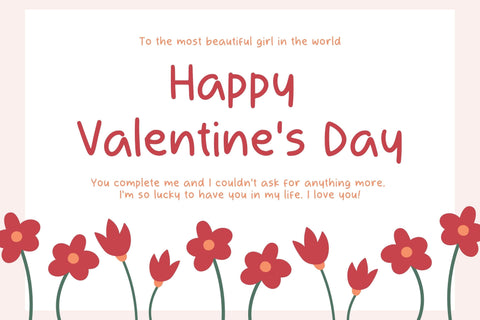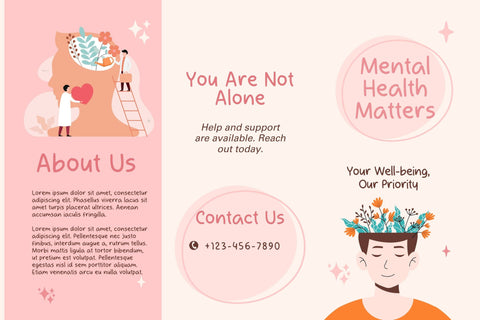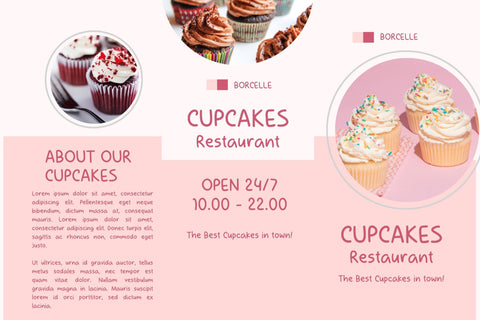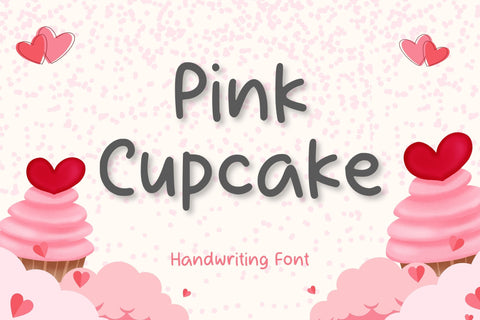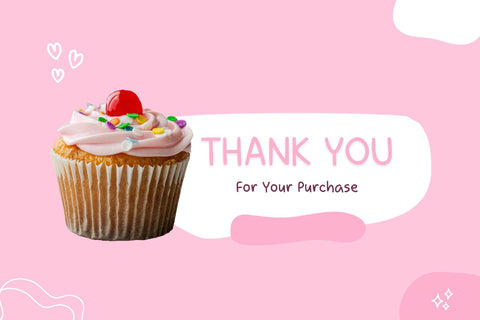
Pink cupcake
Unveiling "Pink Cupcake", an enchanting handwriting font effervescing with charm, this captivating typeface stands out in branding initiatives and creative projects. This delightful font captures the essence of whimsicality and is perfectly tailored for those looking to breathe life into their business artistic endeavors with a dash of sweetness and a pop of personality. Accentuating your unique brand identity, "Pink Cupcake" is your go-to typeface for wielding a touch of enchantment and crafting memorable imprints. Let your creativity run wild with "Pink Cupcake", the font designed to add a sprinkle of playfulness to your text.